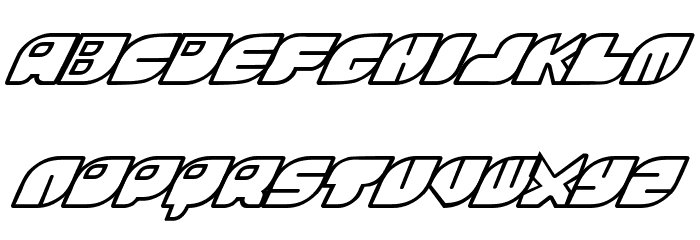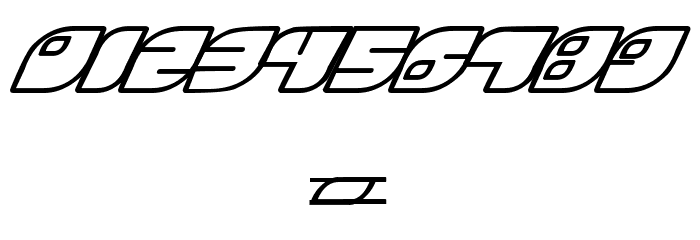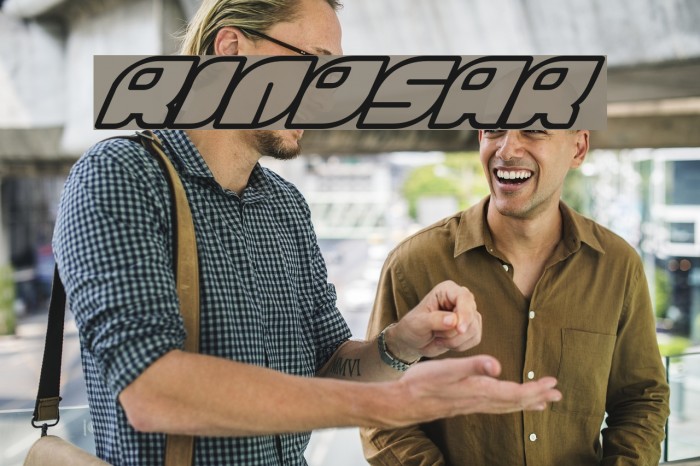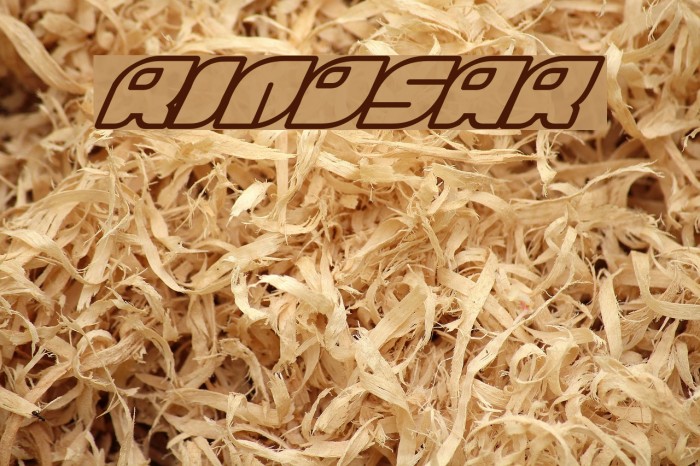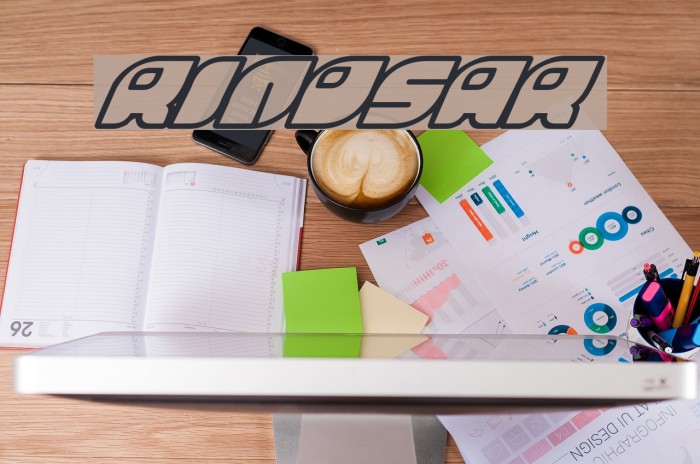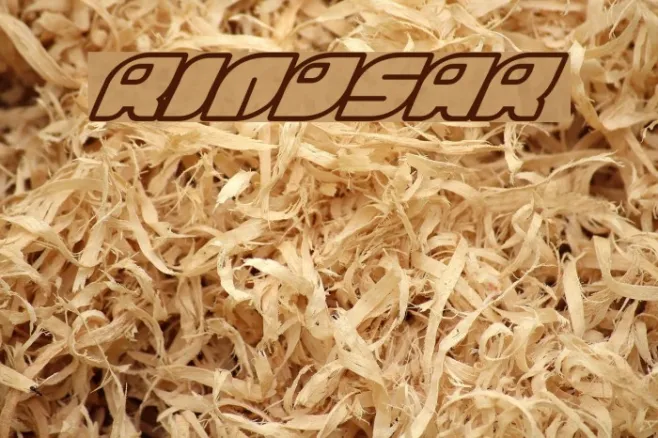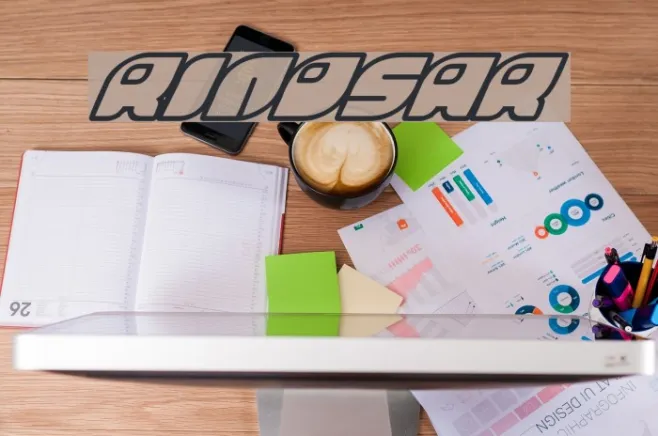
Rinosaur Font
This font features a bold, futuristic design with a distinct slant, giving it a dynamic and energetic appearance. The characters are outlined, creating a hollow effect that adds depth and dimension. The uppercase letters are particularly striking, with sharp angles and unique geometric shapes that convey a sense of movement. The lowercase letters maintain the same style, ensuring consistency across the typeface. Numbers and special characters are designed to match the overall aesthetic, making this font versatile for various applications. The spacing between characters is tight, enhancing the compact and cohesive look.
A bold, futuristic font with a dynamic, outlined design and tight spacing.
- Font: Rinosaur
- Proposed Projects: Ideal for sci-fi themed projects, video game titles, posters, and branding that requires a modern, energetic look.
- Character Spacing: Tight
- Overall Style: Futuristic